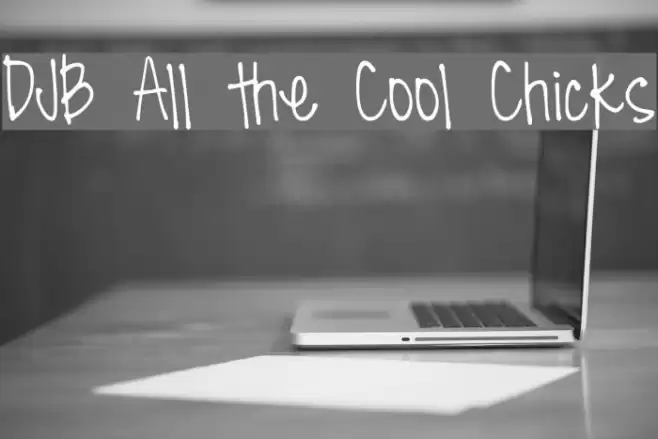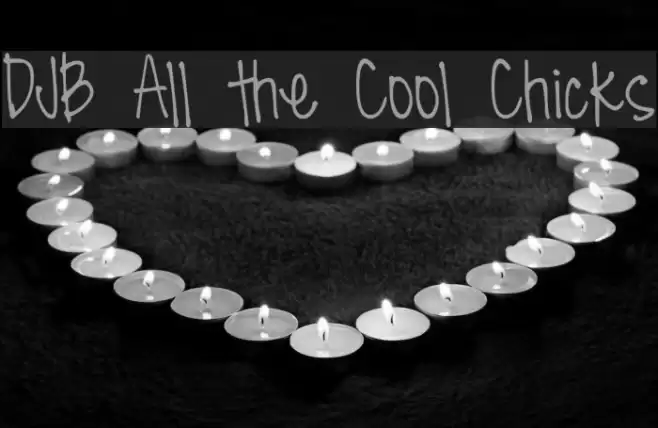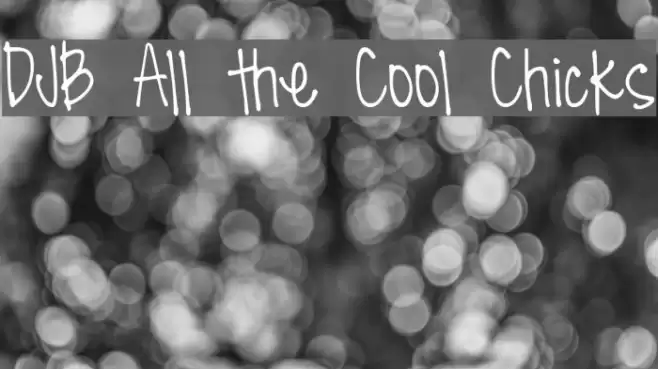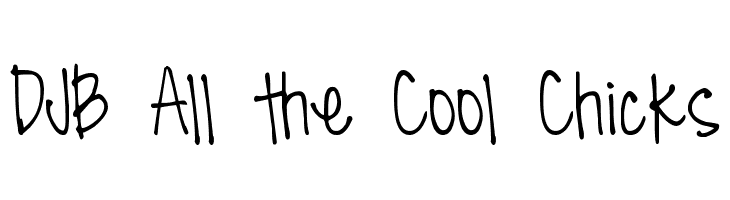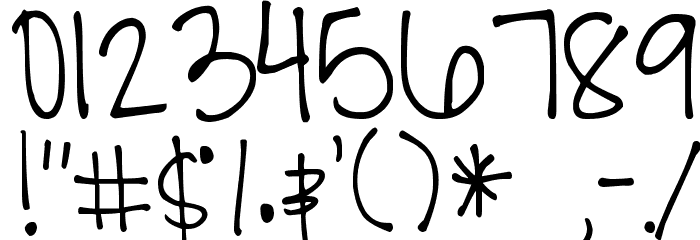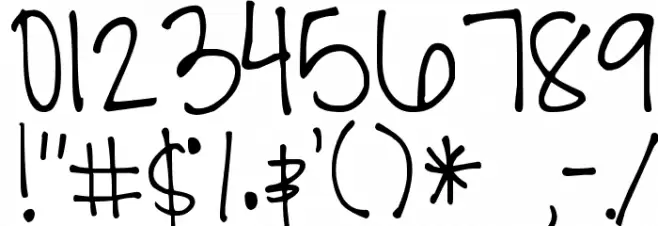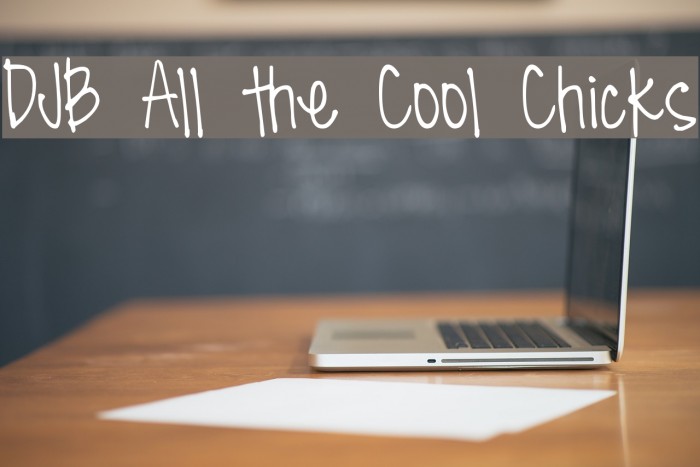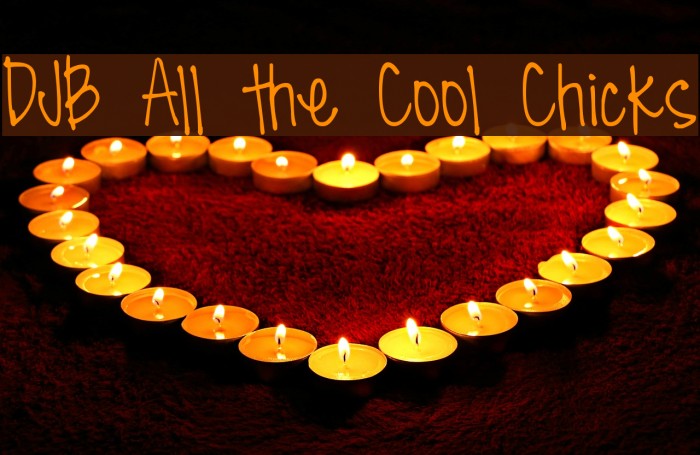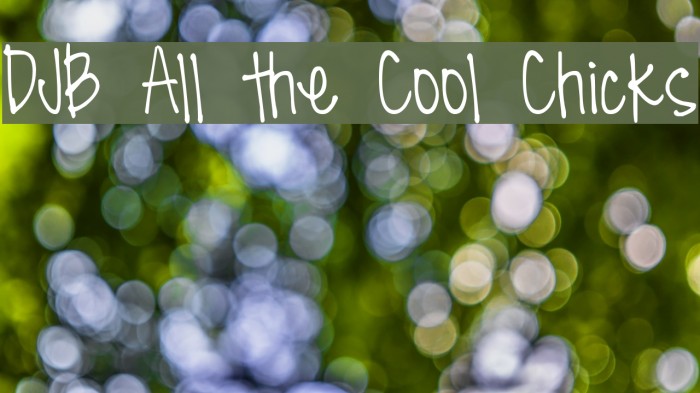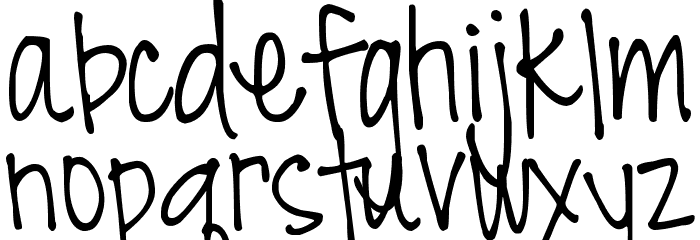
DJB All the Cool Chicks Font
DJB All the Cool Chicks Description
This playful and casual handwritten font features a lively and energetic style, characterized by its irregular strokes and whimsical appearance. The letters are slightly slanted, giving a dynamic and informal feel. The uppercase and lowercase letters maintain a consistent flow, with rounded edges and a friendly demeanor. The numbers and special characters complement the overall style, adding to its charm. This font exudes a sense of fun and creativity, making it ideal for projects that require a personal touch.
A playful, casual handwritten font with lively, irregular strokes from Uncategorized fonts.
- Proposed Projects: Ideal for greeting cards, children's books, playful branding, and personal projects.
- Overall Style: Casual, Playful
- Use Case: Logos, Headlines, Informal Text